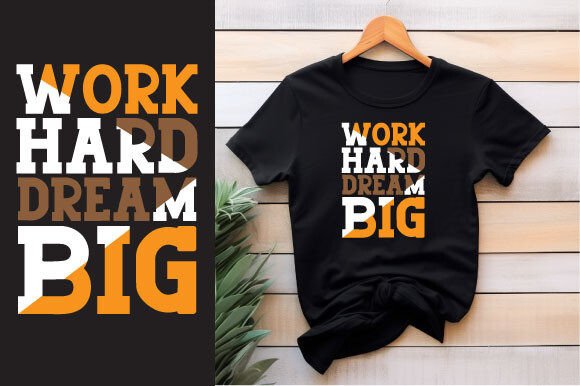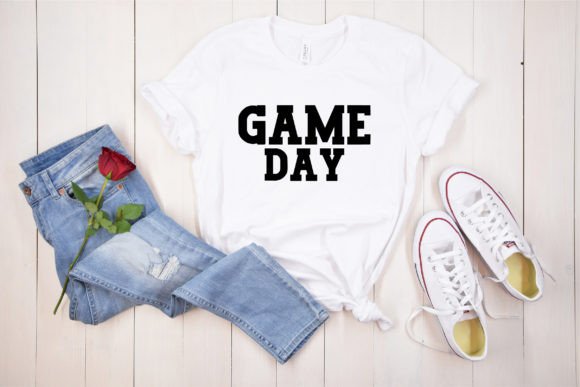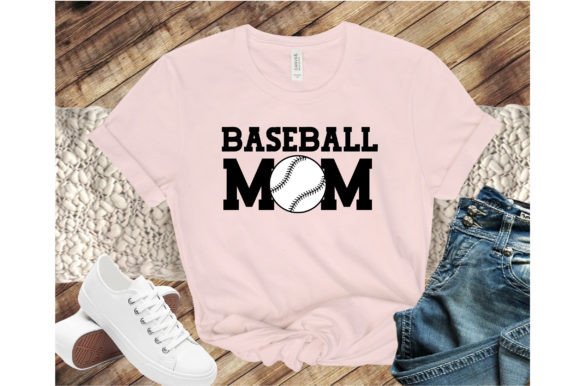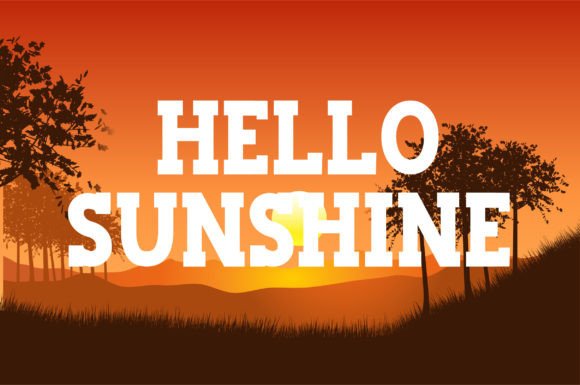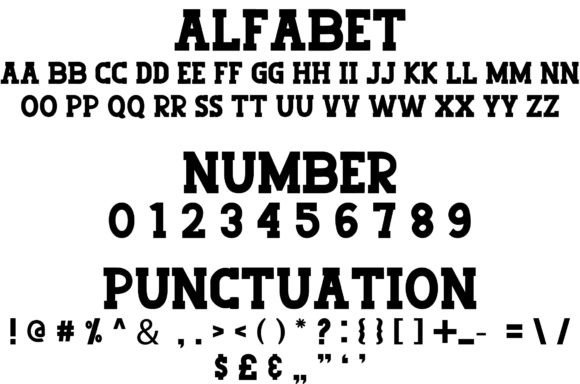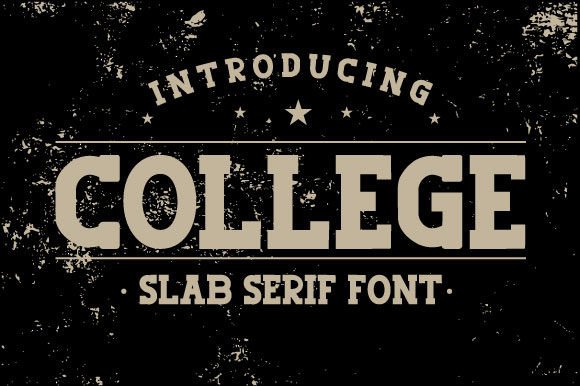
Introducing College Font: The Ultimate Slab Serif Font for Designers and Crafters
Are you looking for a font that can add a special touch to your design ideas? Look no further than College Font, a bold slab serif font that is perfect for designers and crafters alike. With its unique and stylish design, College Font is sure to take your projects to the next level.
What is College Font?
College Font is a bold slab serif font that is designed to make a statement. Its thick, sturdy lines and classic serif design make it perfect for a wide range of projects, from mugs and shirts to Christmas invitations and social media posts. Whether you’re a designer, crafter, or DIY enthusiast, College Font is the perfect addition to your font collection.
Why Choose College Font?
So why choose College Font over other fonts? Here are just a few reasons why College Font stands out:
- Unique Design: College Font has a unique and stylish design that is sure to grab attention. Its bold, slab serif design makes it perfect for headlines, titles, and other design elements.
- Versatility: College Font is incredibly versatile, making it perfect for a wide range of projects. From mugs and shirts to Christmas invitations and social media posts, College Font can be used in any design project.
- High-Quality: College Font is a high-quality font that is designed to produce crisp, clear results. Whether you’re printing on paper or fabric, College Font looks amazing.
What Can You Use College Font For?
College Font is incredibly versatile, making it perfect for a wide range of projects. Here are just a few ideas to get you started:
- Mugs: Add a personal touch to your mugs with College Font. Perfect for gifts or personal use.
- Shirts: Create custom shirts with College Font. Perfect for sports teams, events, or personal use.
- Christmas Invitations: Add a touch of elegance to your Christmas invitations with College Font.
- Stickers: Create custom stickers with College Font. Perfect for laptops, water bottles, or any other surface.
- SVG Designs: Use College Font in your SVG designs to create custom graphics and illustrations.
- Baby Shirts: Create adorable baby shirts with College Font. Perfect for baby showers or personal use.
- Covers: Use College Font to create custom covers for books, journals, or any other item.
- Social Media Posts: Add a touch of style to your social media posts with College Font.
- Product Packaging Headings: Use College Font to create custom headings for product packaging.